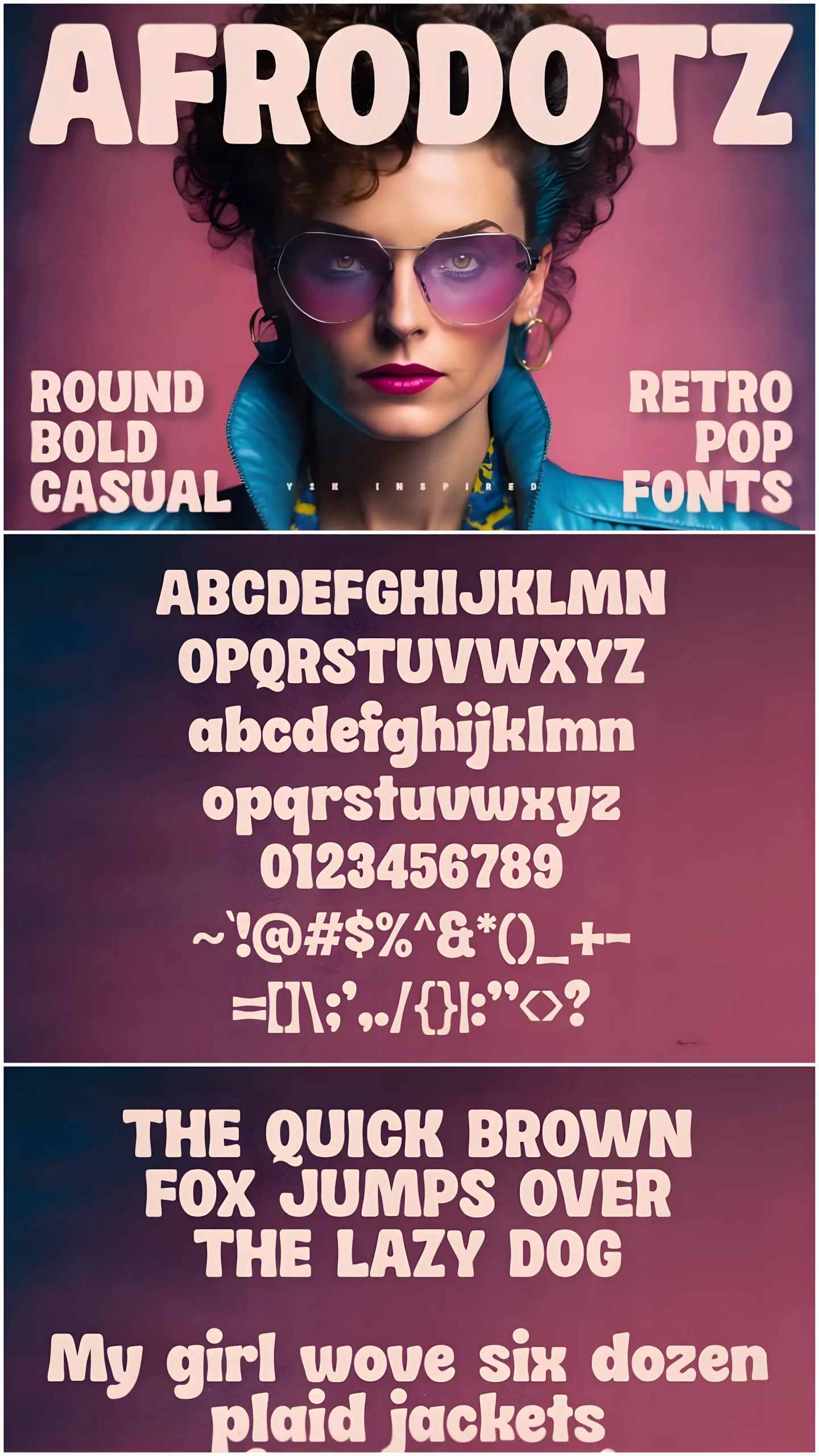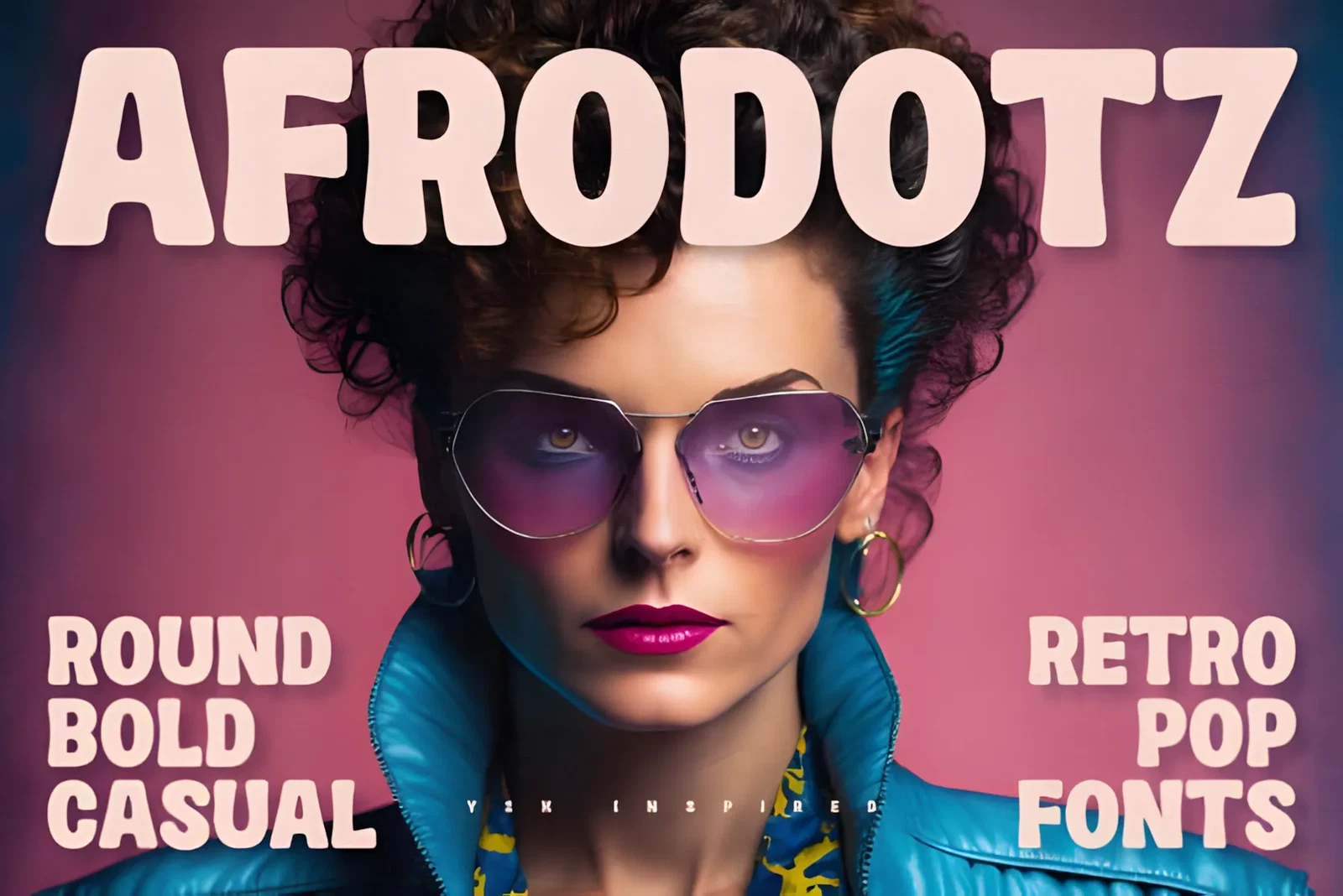
Design trends come and go, but certain eras leave a visual language that keeps returning. Afrodotz Font is built exactly around that idea. It draws inspiration from the bold, playful aesthetics of the late ’90s and early 2000s, combining retro charm with a fresh, modern feel.
This is a display typeface created for designers who want their text to stand out. Afrodotz feels fun, expressive, and confident, making it a strong choice for projects that need personality rather than restraint.
Visual Style and First Impression
Afrodotz Font immediately communicates a retro pop vibe. The letterforms are bold, rounded, and slightly chunky, giving the font a friendly and energetic appearance. There is a clear nod to Y2K-era typography, where shapes were playful, exaggerated, and designed to grab attention.
Despite the heavy forms, the letters remain readable. The curves are smooth, and the proportions are balanced, which keeps the font usable in real layouts rather than just decorative previews.
The overall impression is fun and nostalgic, but not outdated. Afrodotz manages to feel retro while still fitting comfortably into modern design trends.
Inspired by Y2K and Retro Pop Culture
Afrodotz Font is clearly inspired by the visual language of the ’90s and early 2000s. That influence shows in the rounded shapes, bold weight, and playful rhythm of the text.
This makes the font especially suitable for:
- Y2K-inspired designs
- retro-themed projects
- pop and youth-oriented visuals
- nostalgic branding
Instead of copying old styles directly, the font reinterprets them with cleaner structure and improved readability.
Practical Design Applications
Posters, Covers, and Headlines
Afrodotz Font works best in large sizes where its bold personality can fully shine. Posters, covers, and headline text benefit from its strong presence.
It performs especially well for:
- event posters
- music or album covers
- promotional graphics
- bold headlines
The font doesn’t need extra effects to stand out — its shape alone is enough to command attention.
Branding and Creative Logos
For brands that want to feel playful, bold, and approachable, Afrodotz Font can work well in logo design. The rounded forms give logos a friendly tone while still feeling confident and modern.
It fits naturally into:
- lifestyle brands
- creative studios
- youth-focused projects
- fun digital products
Used carefully, it creates a memorable and expressive identity.
Social Media and Digital Content
On digital platforms, Afrodotz Font feels right at home. Its bold shapes remain clear on screens and hold up well at different sizes.
It works well for:
- social media posts
- story graphics
- thumbnails
- digital banners
The retro pop style also aligns well with trends commonly seen on visual platforms.
Readability and Usage Notes
Afrodotz Font is designed as a display font, not for long paragraphs. It performs best in:
- titles
- headlines
- short phrases
- featured text
Because of its bold weight, spacing is important. Giving the letters room to breathe helps maintain clarity and keeps designs from feeling crowded.
Pairing Afrodotz with a clean sans-serif font for body text creates a strong visual contrast and keeps layouts balanced.
Emotional Tone and Design Feel
The emotional tone of Afrodotz Font is upbeat and playful. It feels fun without being childish and bold without being aggressive. This makes it suitable for projects that aim to feel positive, energetic, and approachable.
The font supports designs that want to evoke nostalgia while still feeling fresh and relevant.
Where Afrodotz Font Fits Best
Afrodotz Font works especially well for:
Afrodotz Font captures the playful spirit of retro pop design while staying usable in modern projects. Its bold shapes, rounded forms, and nostalgic energy make it a strong choice for designers who want typography to feel fun and expressive.
For projects that need character, confidence, and a touch of Y2K flair, Afrodotz Font offers a clear and engaging solution. Used thoughtfully, it turns simple text into a visual statement that feels both nostalgic and fresh.